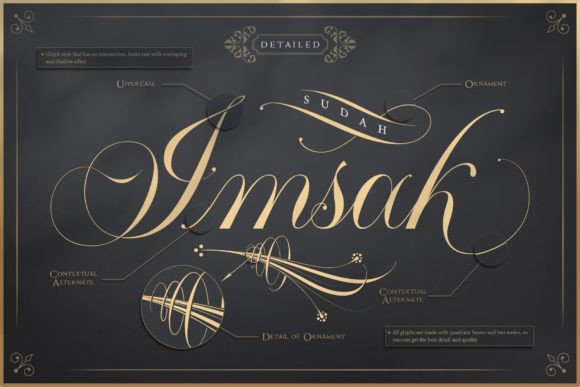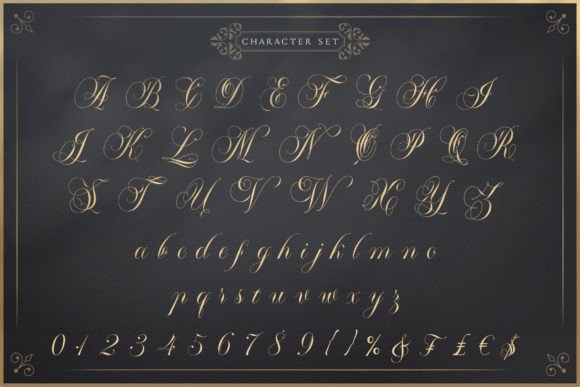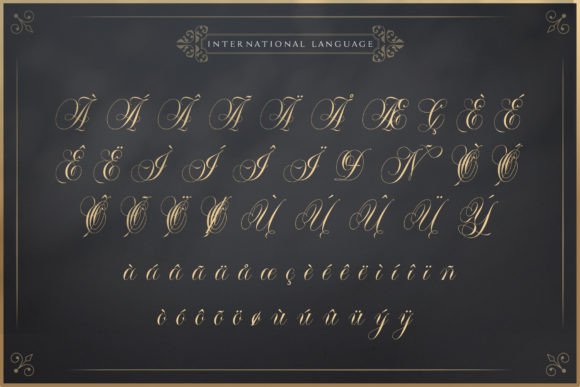
Introduction to Mallaire Font
As a designer, there’s nothing quite like the thrill of bringing a creative project to life. Whether it’s a wedding invitation, a book cover, or a logo, the right font can make all the difference. And when it comes to evoking a sense of classic elegance, few fonts are as timeless as the Mallaire Font. With its exclusive style and touch of sophistication, this calligraphy font is the perfect choice for any design project that demands a high level of refinement.
Whether you’re working on a free download or a high-end branding project, the Mallaire Font is a valuable asset for designers. Its versatility and high quality make it suitable for a wide range of applications, from greeting cards to business cards and certificates. With its transparent background and elegant script, this font is sure to add a touch of luxury to any design.
Key Features of Mallaire Font
- Unique, cursive script font suitable for creative projects and design resources.
- Perfect for use in creative projects, such as logos, typography, and design elements.
Honest Review: Mallaire Font
I recently stumbled upon the Mallaire Font, and I must say it’s a great addition to any designer’s toolkit. The font is available for free download, which is always a bonus when working on a creative project.
What works well with the Mallaire Font is its high quality and versatility. It’s perfect for projects that require a touch of elegance and sophistication, and the transparent background feature allows for seamless integration with other design elements.
- ✨ Elegant and sophisticated design
- ✨ High quality and clear typography
- ✨ Transparent background for easy integration
However, there are a few limitations to consider. The font may not be suitable for projects that require a bold or playful tone, and the lack of customization options may limit its use in certain creative contexts.
- ⚠️ May not be suitable for bold or playful projects
Overall, I’m impressed with the Mallaire Font and would recommend it to designers looking for a high-quality, elegant font for their creative projects. With a little creativity, it can be a valuable addition to any design resource library.
Tips for Getting the Most Out of Mallaire Font
To get the most out of the Mallaire Font, be sure to use it on a transparent background to allow the text to stand out. You can also use the font in combination with other design elements, such as images and graphics, to create a visually appealing design.
The Mallaire Font is a versatile design resource that can be used in a variety of creative projects, including branding, advertising, and editorial design. It is particularly well-suited for use in applications where a high-quality, elegant font is required, such as in wedding invitations, business cards, and product labels.